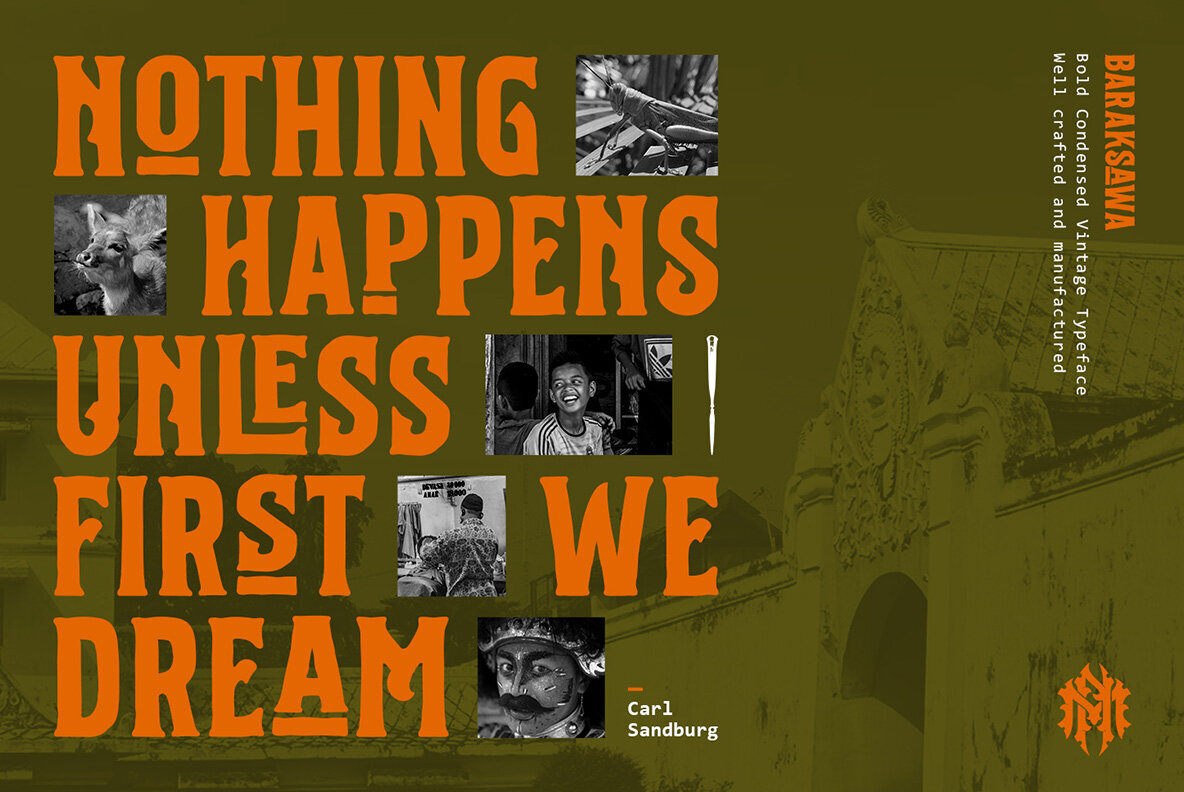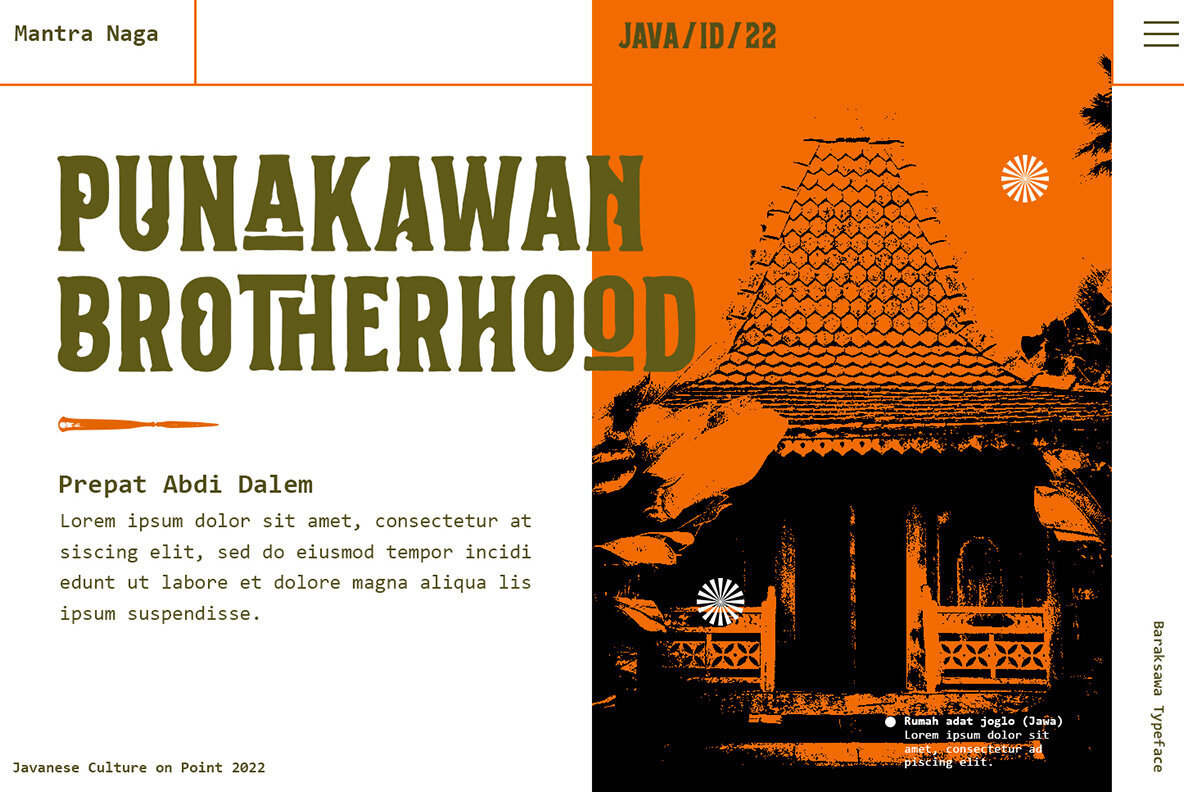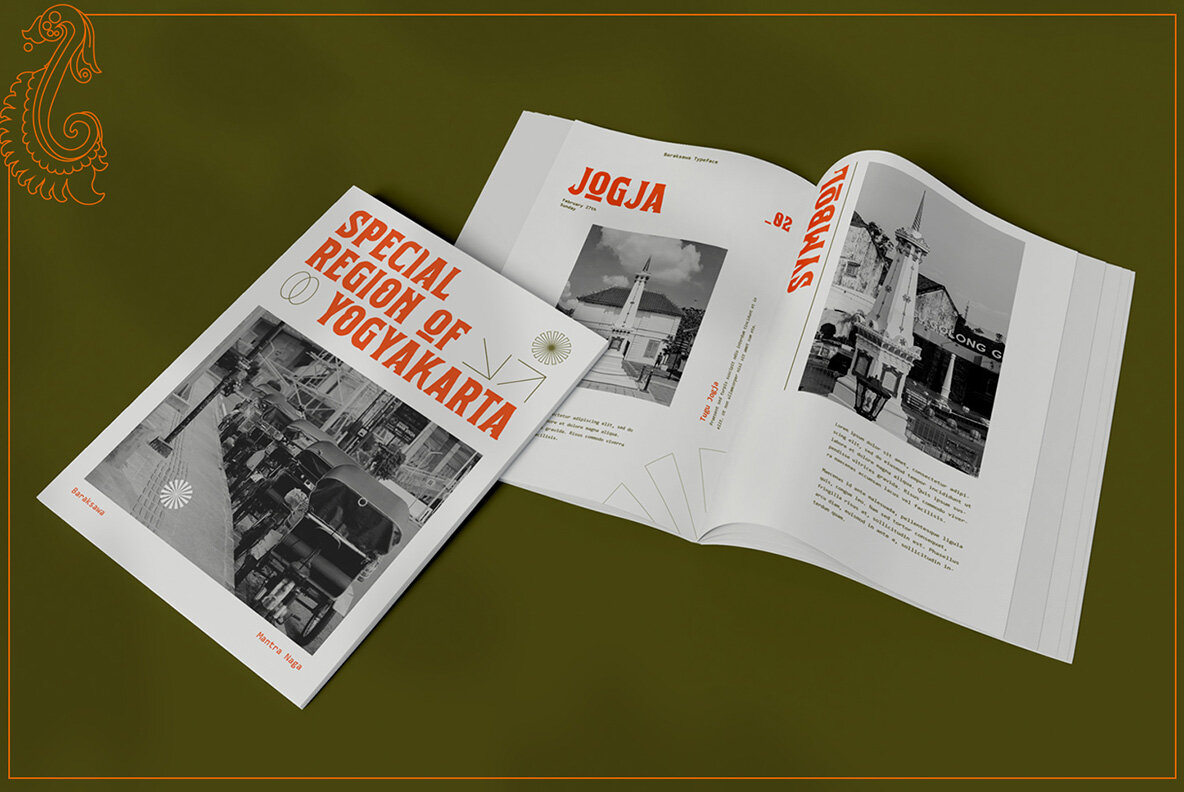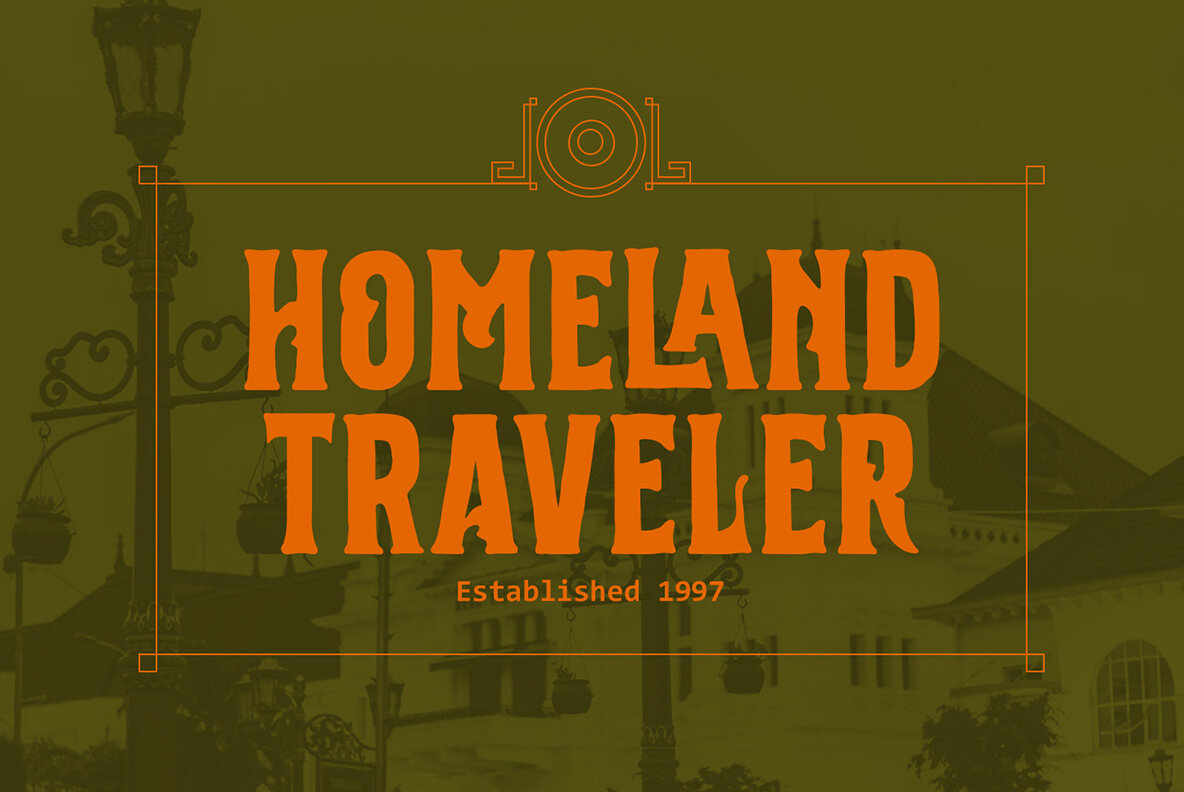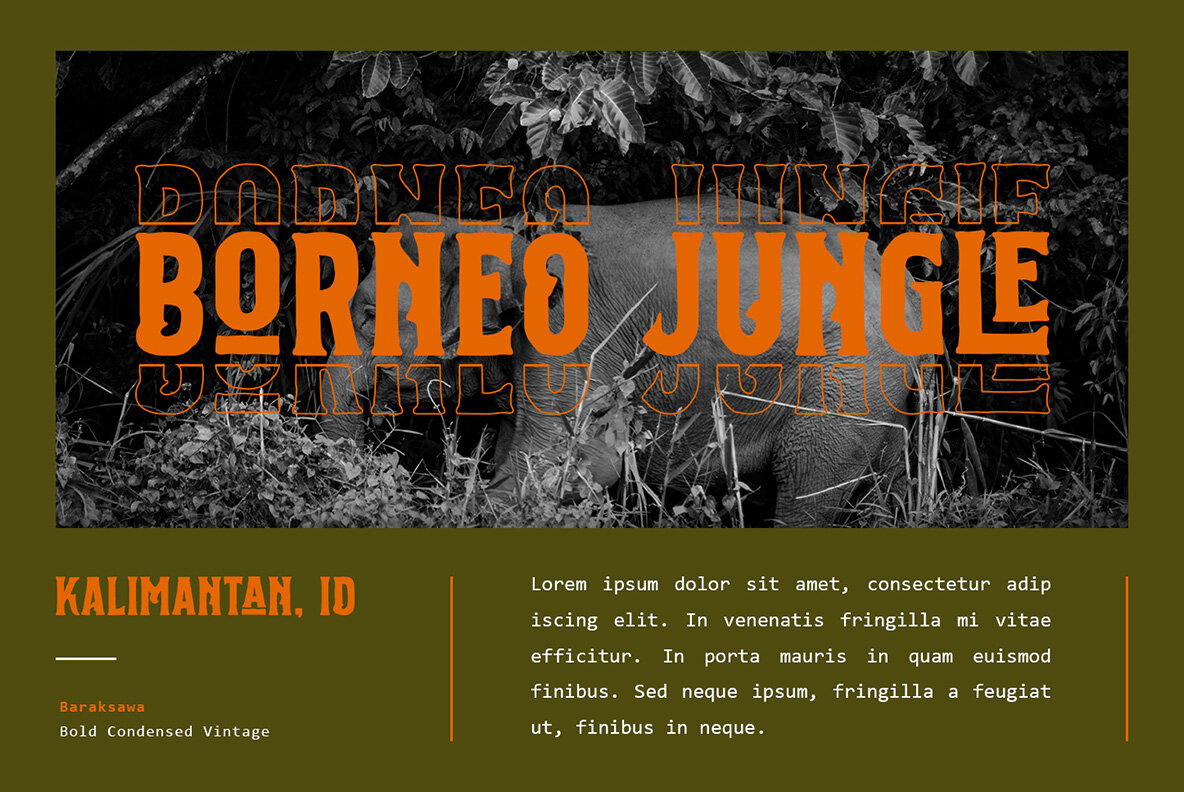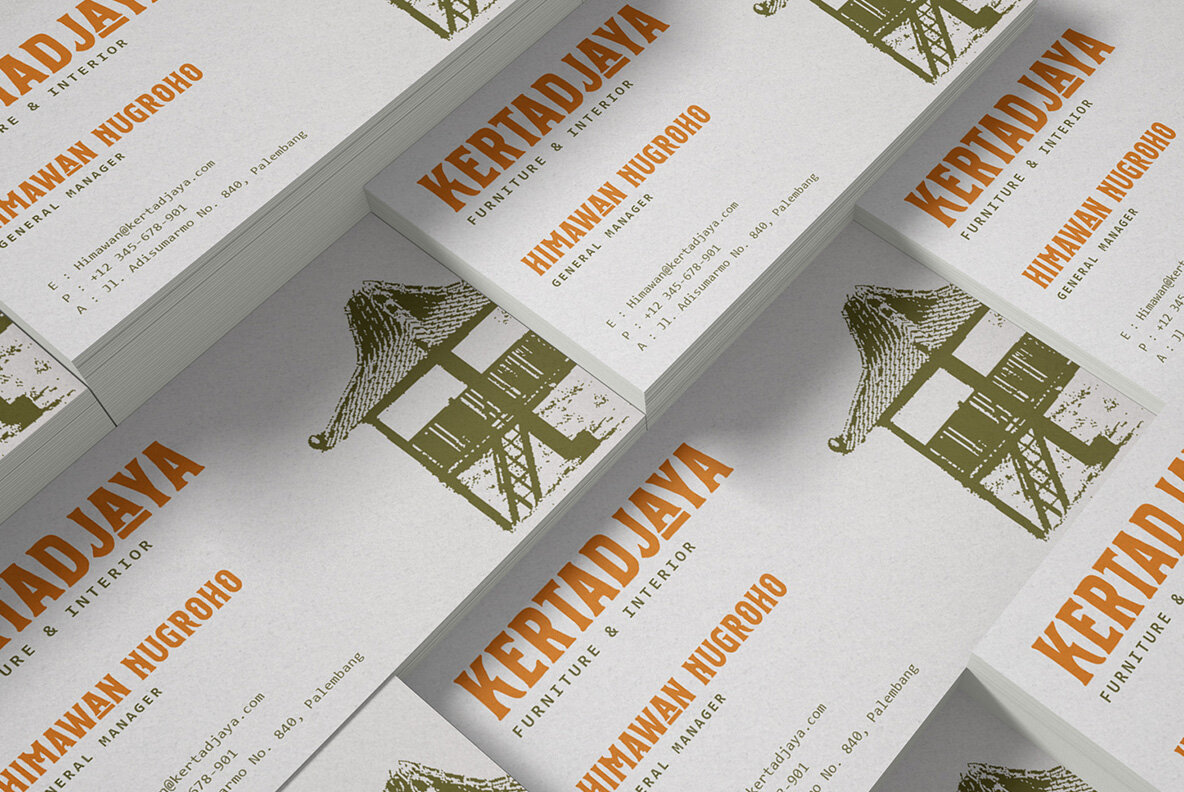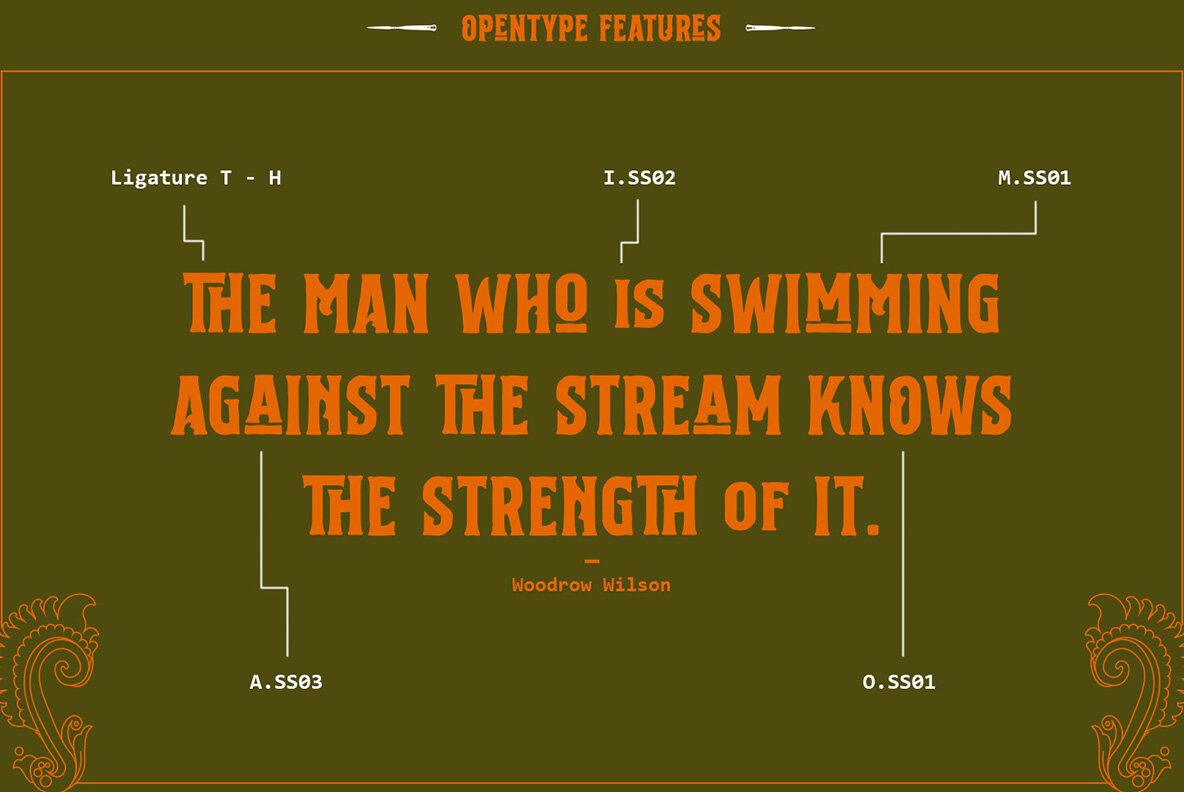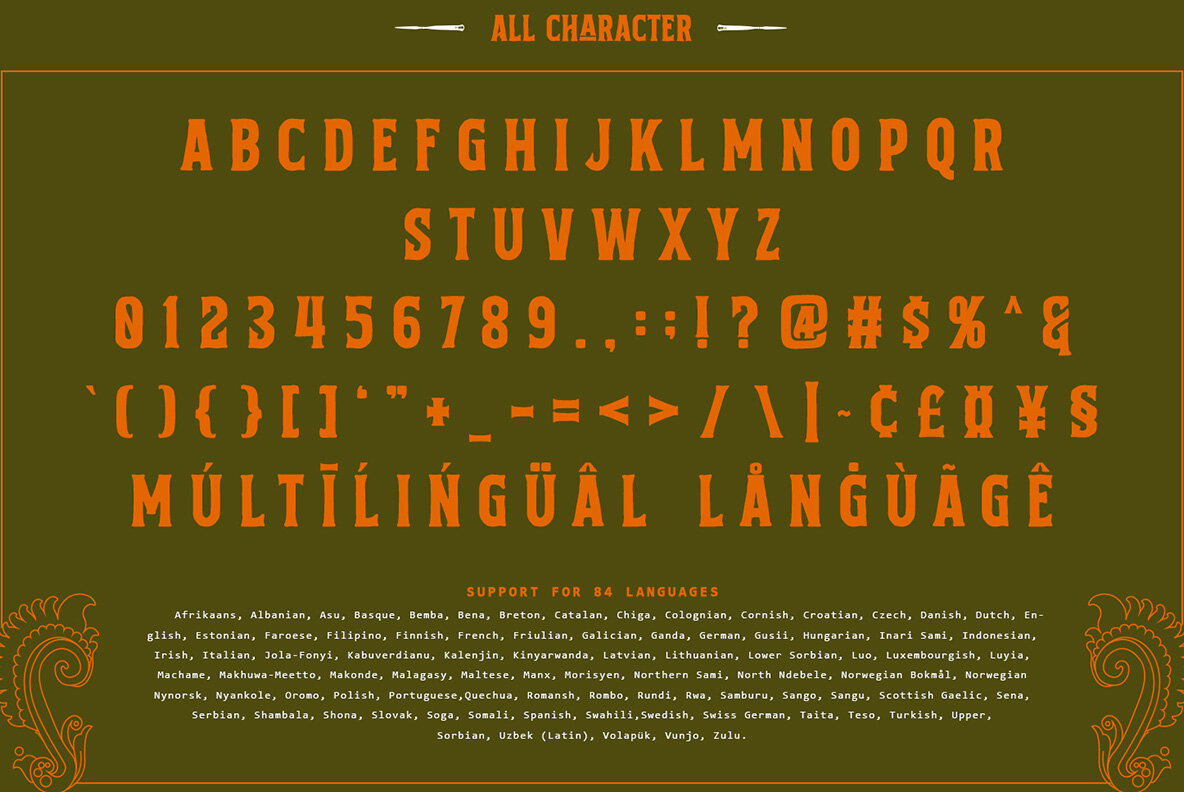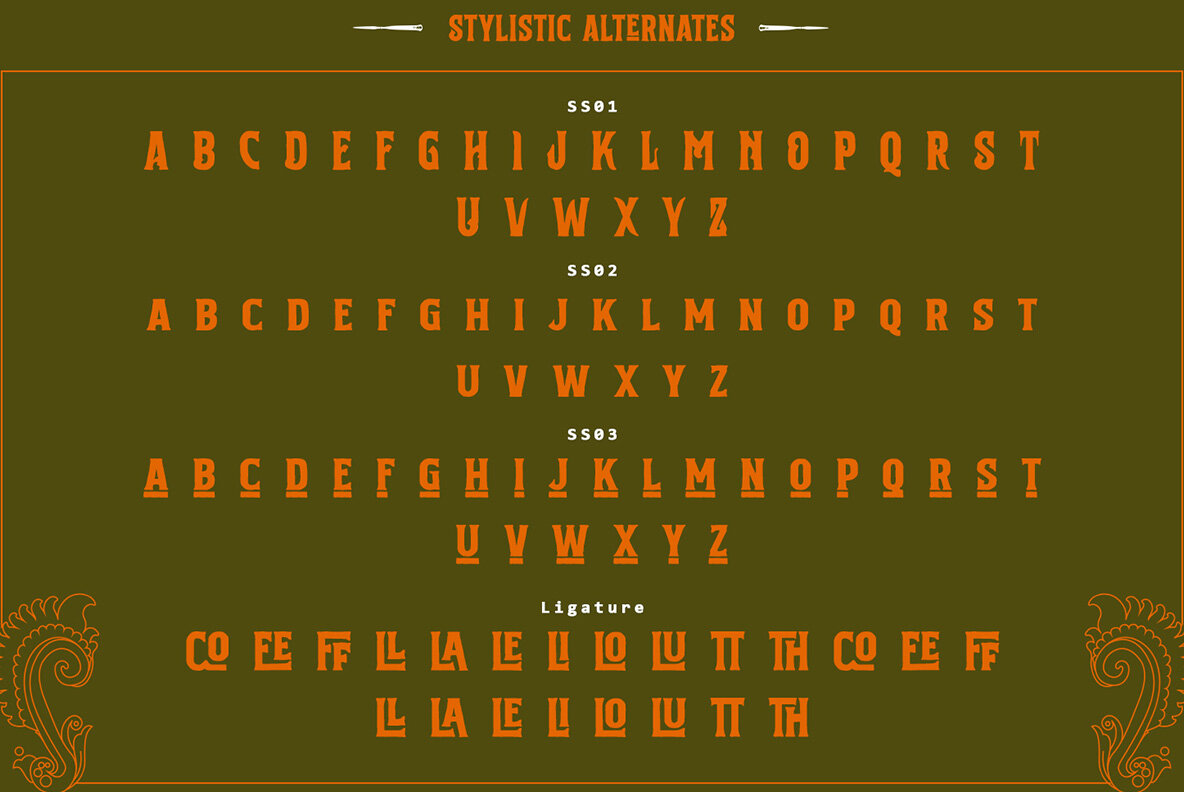
Baraksawa Font
Baraksawa Regular
Discover Baraksawa, a distinctive typeface featuring eye-catching swashes and bold serifs that enhance your lettering and logotypes with a unique charm. The grainy texture adds a touch of character, making it truly one-of-a-kind.
Ideal for a wide range of applications, Baraksawa is perfect for logos, invitations, labels, magazines, books, greeting/wedding cards, packaging, fashion, makeup, stationery, novels, and advertising materials.
Key features of Baraksawa include:
Uppercase and lowercase letters
Numbers and punctuation
Multilingual support
Ligatures
Alternates
Swashes